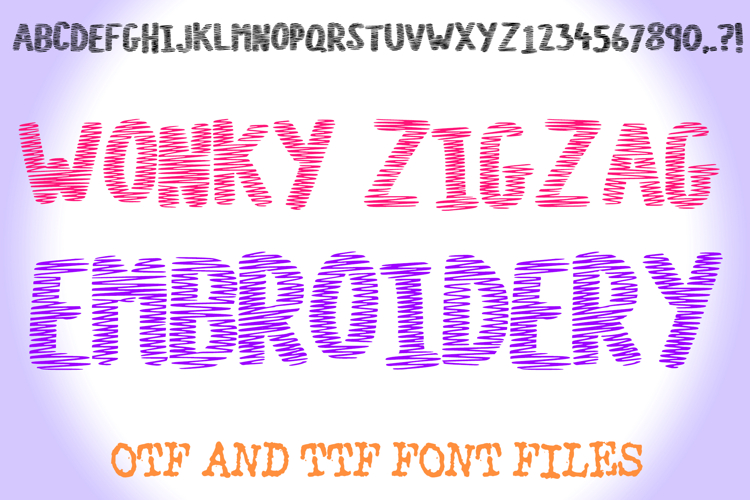
Wonky Zigzag Embroidery Lettering ABC Font Stitch Type
Bring your craft projects to life with the Wonky Zigzag Embroidery Stitch Font, a playful sewing-inspired alphabet that adds handmade charm to every design. Each letter features a fun zigzag stitch texture, giving it a cozy, embroidered look that’s perfect for creative crafters, makers, and designers. Whether you’re creating Cricut projects, embroidery-themed graphics, or kids’ printables, this font brings that stitched, homemade feel straight into your work.
The Zigzag Embroidery Stitch Font includes a full uppercase A–Z alphabet, numbers, and basic punctuation, all carefully hand-drawn for a unique, textured appearance. The clean black outline style makes it versatile and easy to layer, color, or cut with vinyl and paper. It installs quickly on your computer and works in your favorite design software — ideal for use in Cricut Design Space, Silhouette Studio, or Procreate.
This sewing font is perfect for handmade shop logos, greeting cards, invitations, and DIY labels. It also works beautifully for print-on-demand designs, classroom décor, or fabric-themed quotes. Each letter feels warm, crafty, and tactile — great for adding a stitched touch to your creative projects.
With its charming handmade vibe and professional finish, the Zigzag Embroidery Stitch Font is the perfect addition to your craft font collection. Download includes OTF and TTF font files — so you can stitch a little creativity into every project you make!